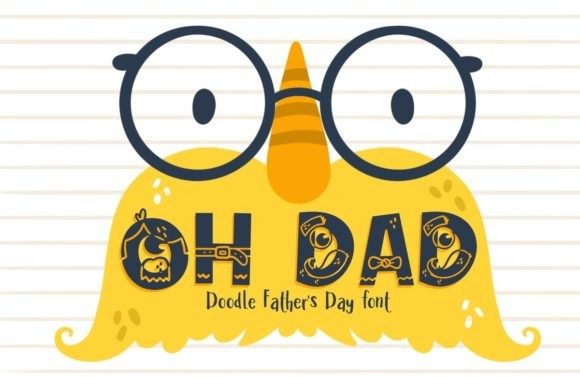
Imagine a font that captures the exuberant spirit of fatherhood, where each letter is adorned with elements reminiscent of our beloved dads. Introducing Oh Dad Font, a playful and decorative creation from Firefly Designs, specifically designed to add a touch of whimsy to your designs.
Oh Dad Font is not just a collection of characters; it's an expression of love and appreciation for the special men in our lives. With its charming belt, bow tie, monocle, and mustache accents, this font will transform your words into heartfelt messages that resonate with warmth and nostalgia.
Picture this: a birthday card for your Dad, adorned with Oh Dad Font. The words "Happy Birthday, Dad" dance across the page, each letter accessorized with a different element that reminds you of him. The belt evokes his strength and unwavering support, while the bow tie adds a touch of sophistication and elegance. The monocle speaks to his wisdom and intelligence, and the mustache brings a playful smile to your face.
Or, envision a Father's Day present, crafted with love and personalized with Oh Dad Font. A framed quote about the love between fathers and children, rendered in this delightful font, becomes a timeless keepsake that will warm his heart every time he sees it.
The applications of Oh Dad Font are endless. Use it to create custom invitations for your Dad's special occasions, design greeting cards that express your gratitude, or simply add a touch of whimsy to your everyday projects. The possibilities are limited only by your imagination.